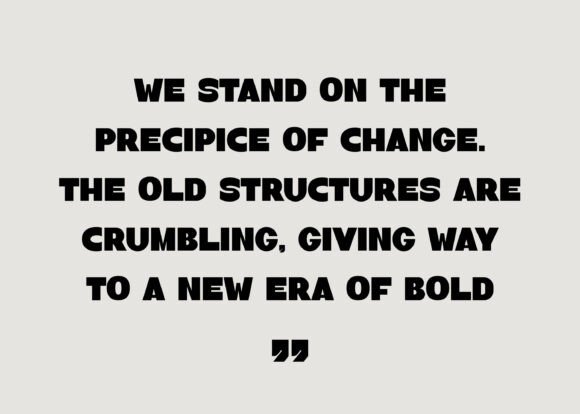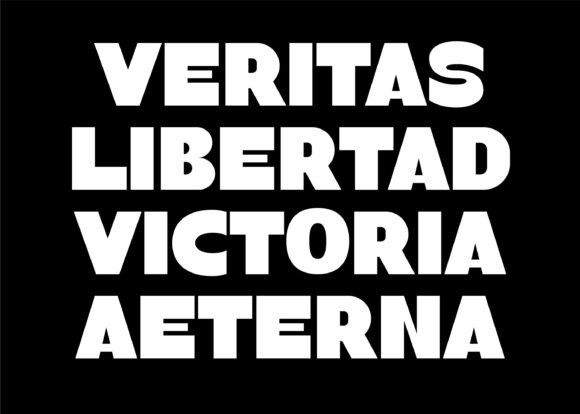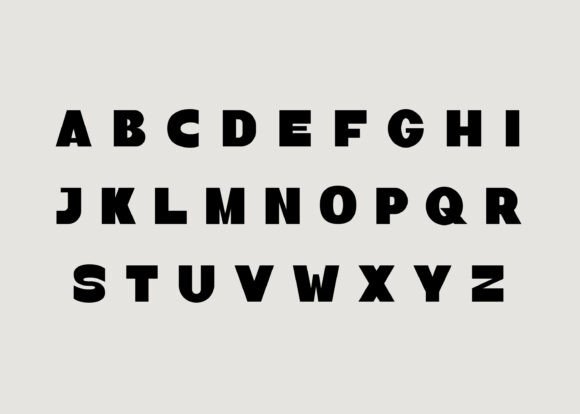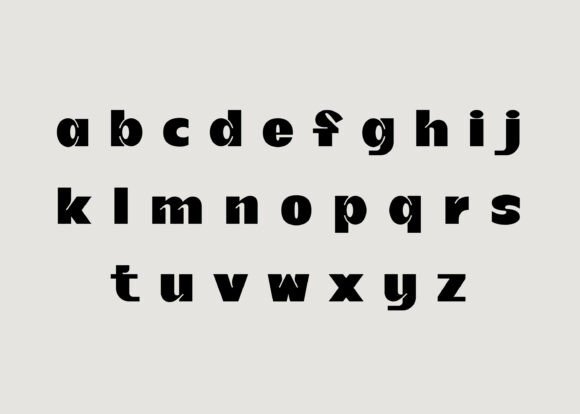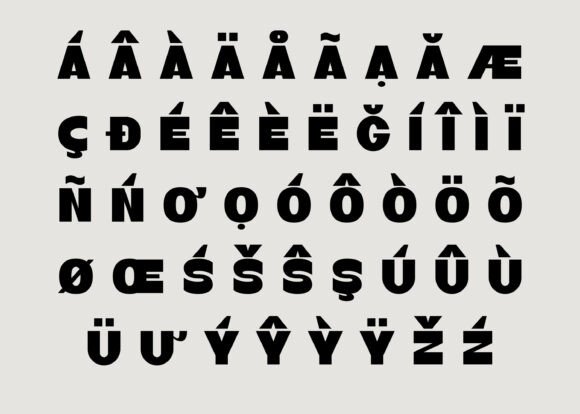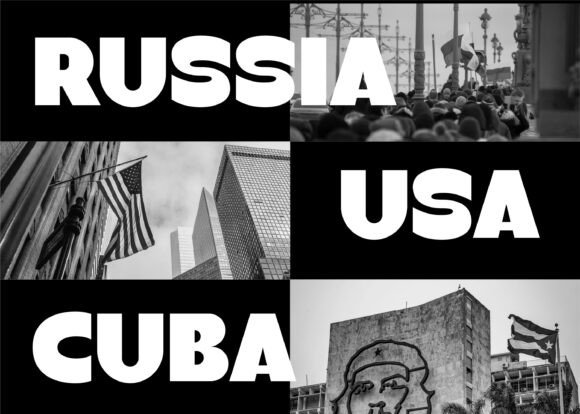
Introduction to Revold Font
A bold display font designed to capture a rebellious, revolutionary vibe.
Created to bring a sense of strength and defiance to your work With its commanding structure and unyielding weight, it is an ideal choice for streetwear branding, poster designs, or editorial layouts that demand a confident, powerful look.
Key Features of Revold Font
Why Choose Revold Font?